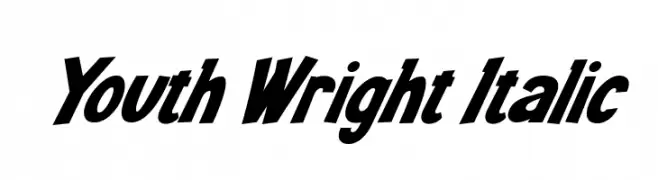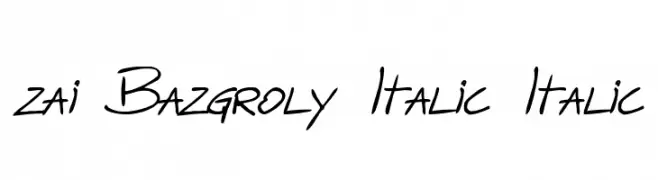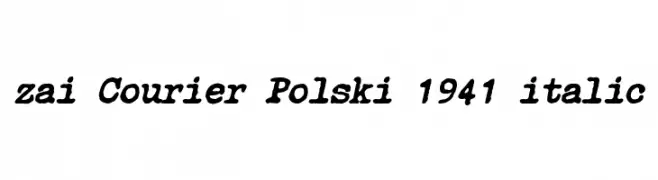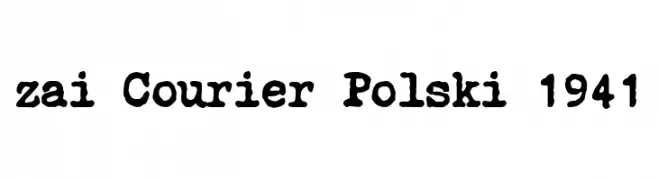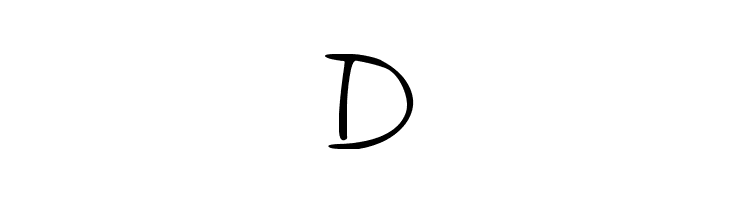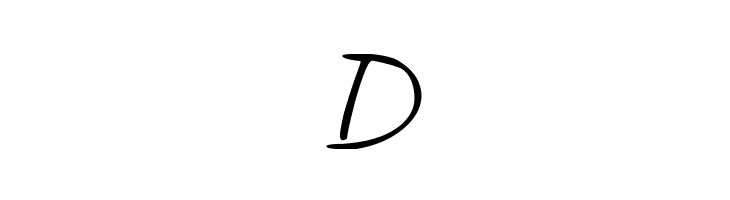
• Youth Wright Italic
A bold, italic font with a dynamic and energetic style.
• Youth wright Oblique
A bold, playful oblique font with a dynamic and energetic style.
• Youthing October Fourteen
A playful, handwritten font with a light, airy feel and rounded edges.
• Youthing October Fourteen Italic
A smooth, flowing script font with an elegant italic style.
• Zabur
A bold, dramatic Blackletter-style font with high contrast and intricate details.
• zai Bazgroly
A playful, hand-drawn font with a graffiti-like, informal style.
• zai Bazgroly Italic Italic
A playful, handwritten italic font with a dynamic and casual style.
• zai Consul Polish Typewriter
A vintage typewriter-style font with a textured, distressed look.
• zai Courier Polski 1941
A bold, rounded typewriter-style font with a modern twist.
• zai Courier Polski 1941 italic
A bold, italicized font with a dynamic and expressive style.